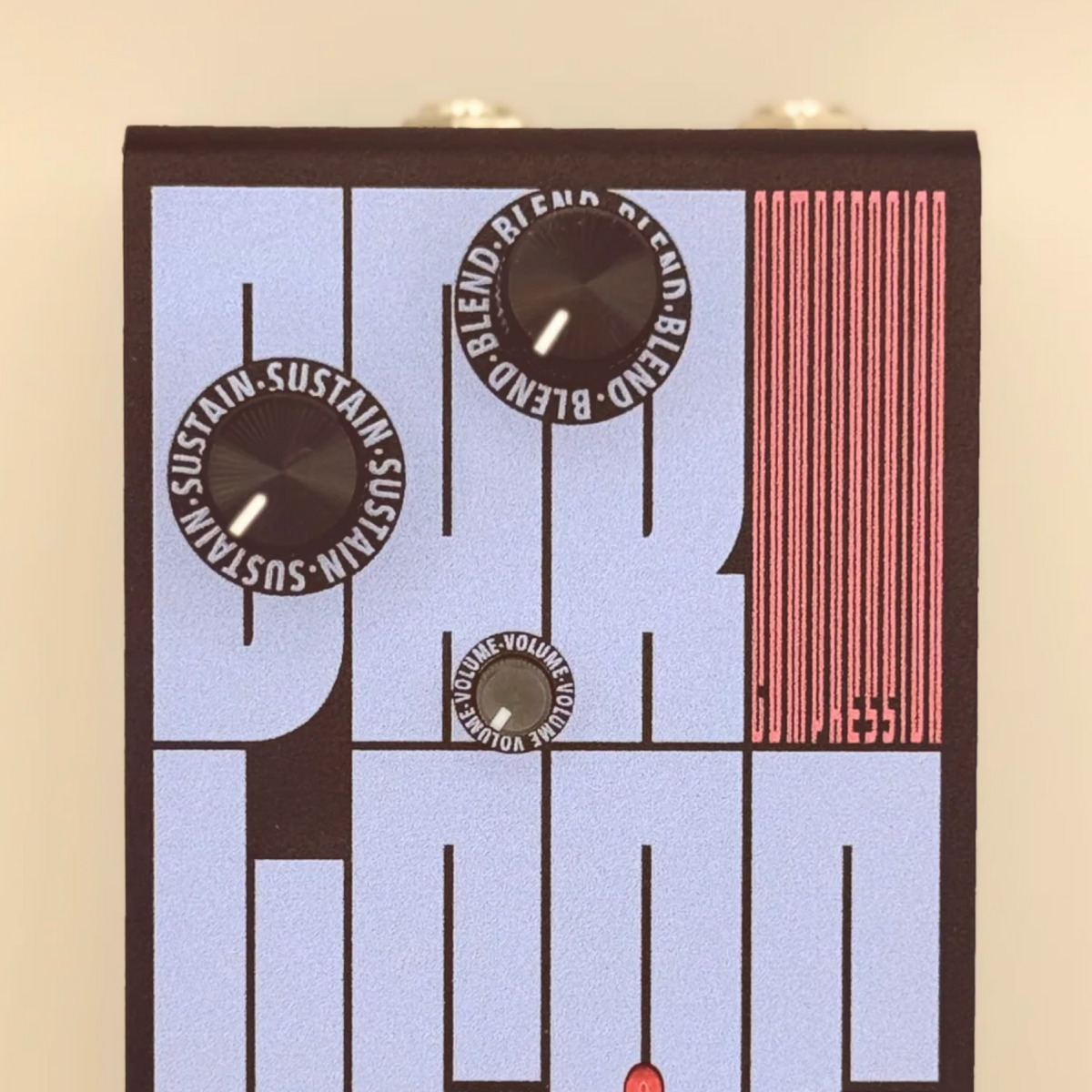
Darlene is an effects pedal that can be connected to a synthesizer, microphone, or guitar. Heather Brown Electronicals, a company that produced Darlene, says on its website that — unlike many other pedals — it doesn’t distort the sound, but is designed to preserve its original dynamics. The device’s typography features Fit by David Jonathan Ross, applied in two widths. The pedal was designed by Graham McClanahan.
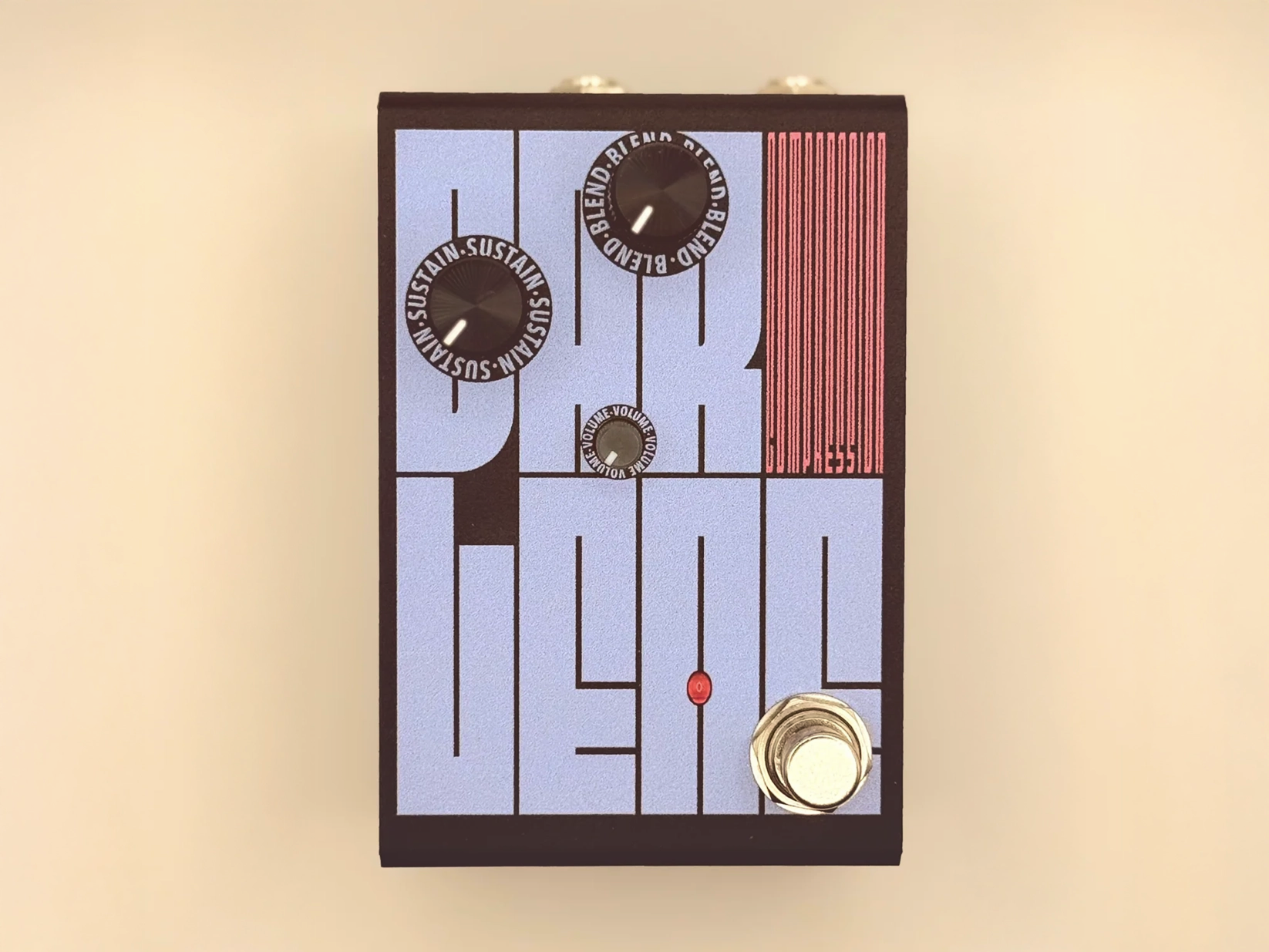
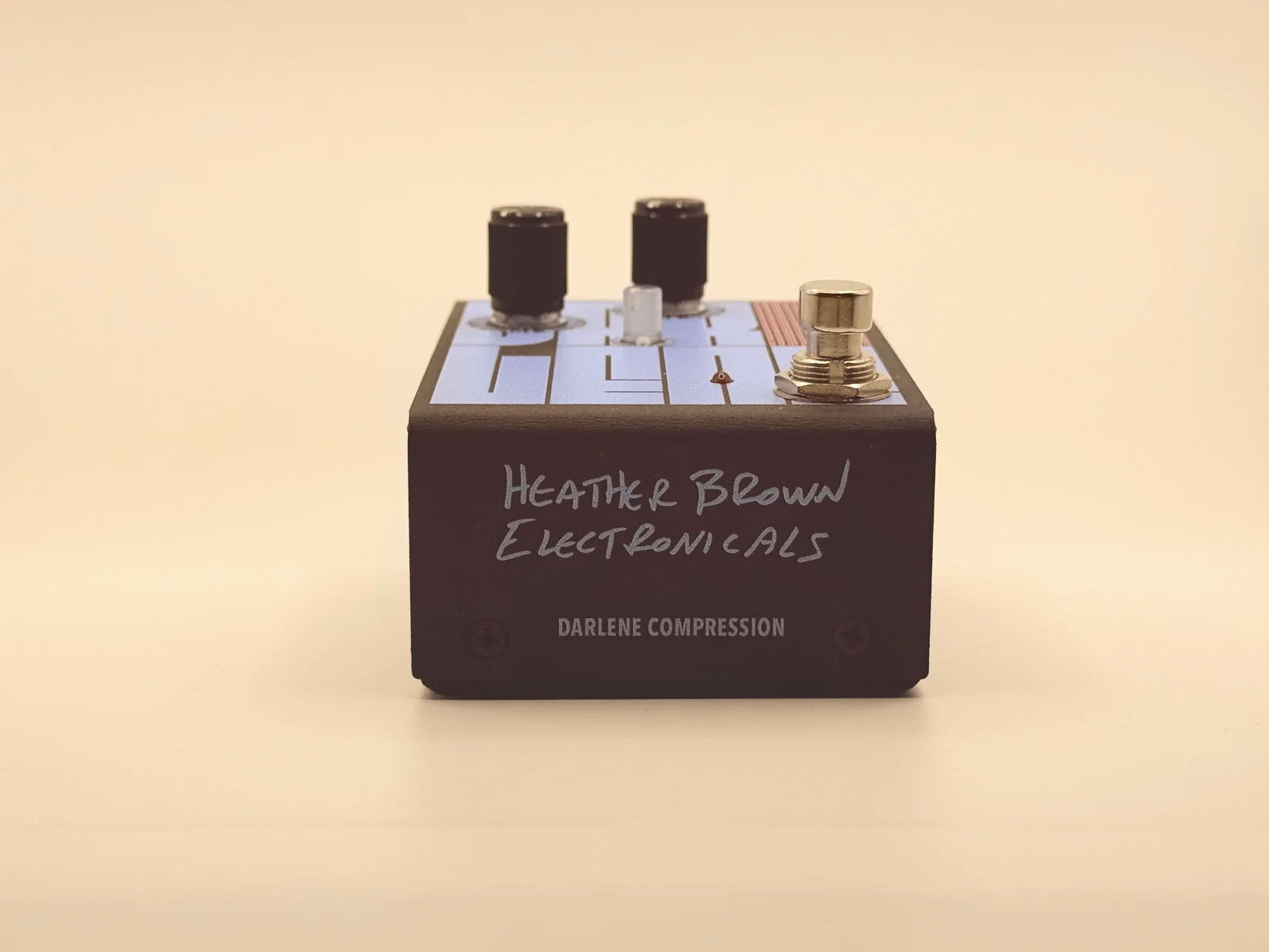
Fit consists exclusively of uppercase characters and can fill virtually any space with maximum density, provided one chooses the proper width. The typeface comes in ten widths, ranging from Skyline to Ultra Extended, and is also available as a variable font.